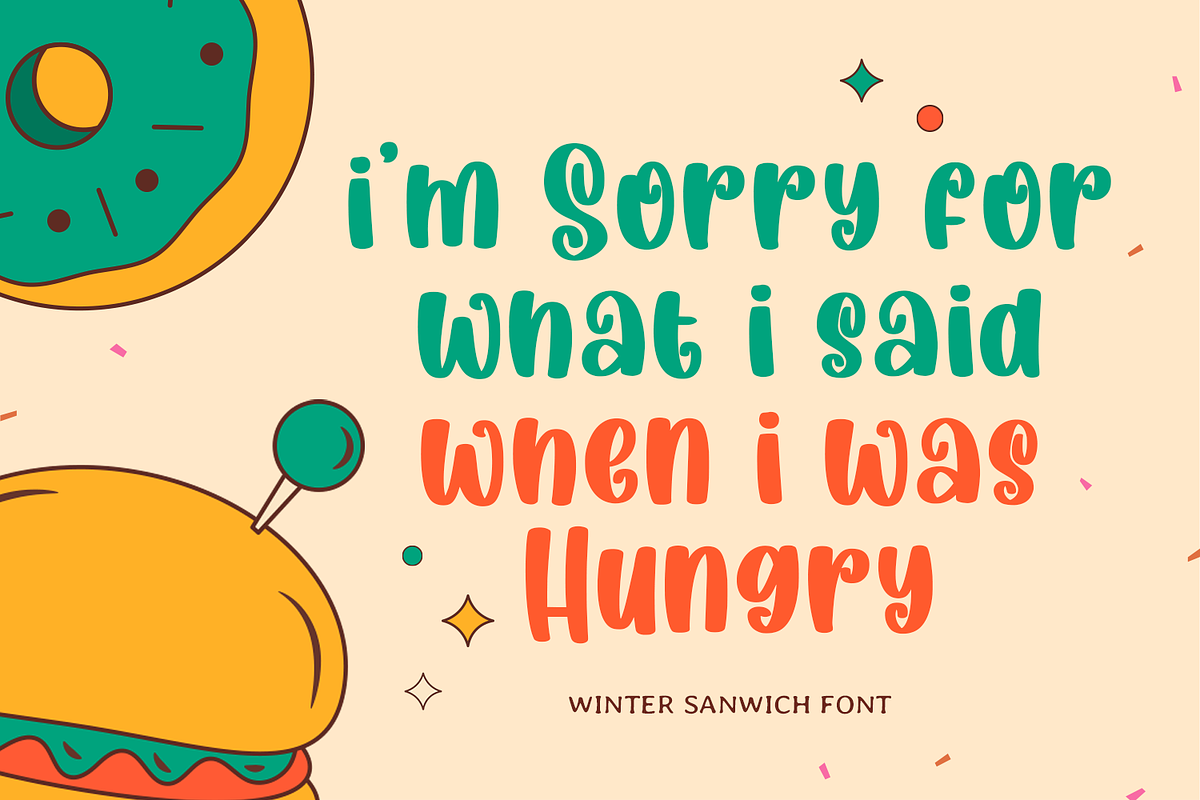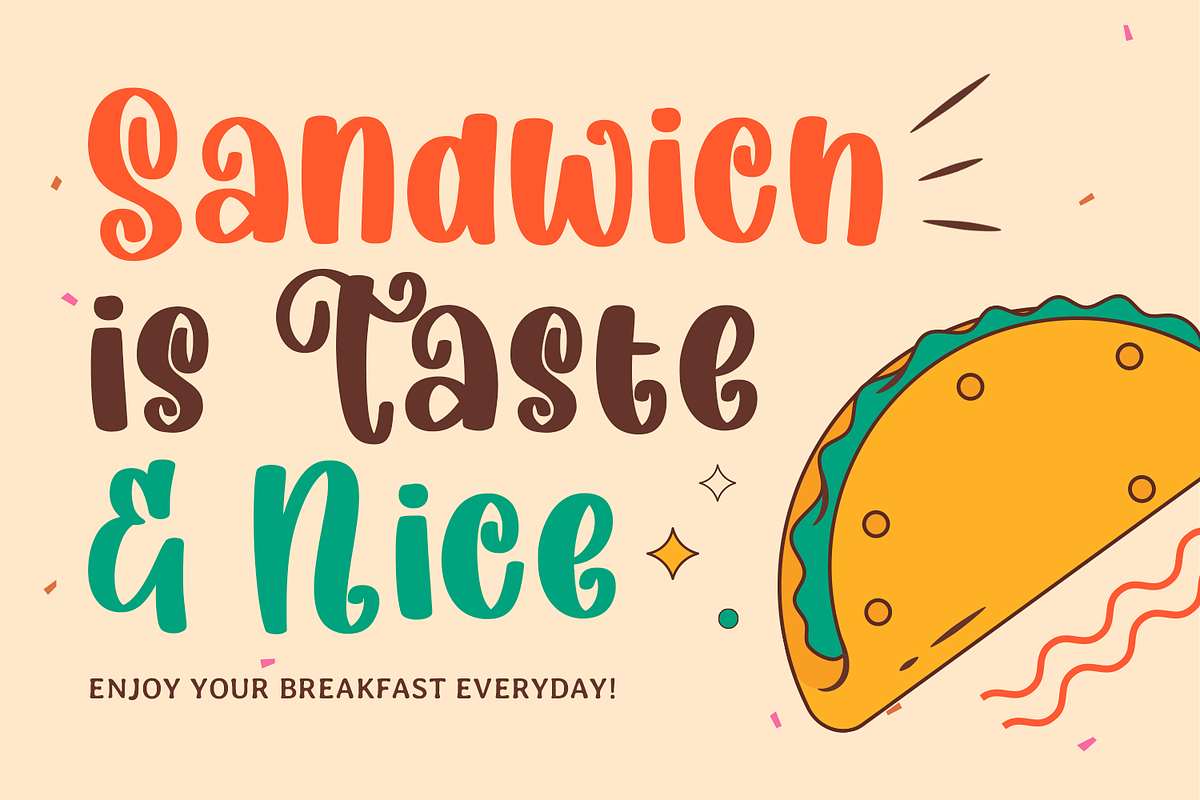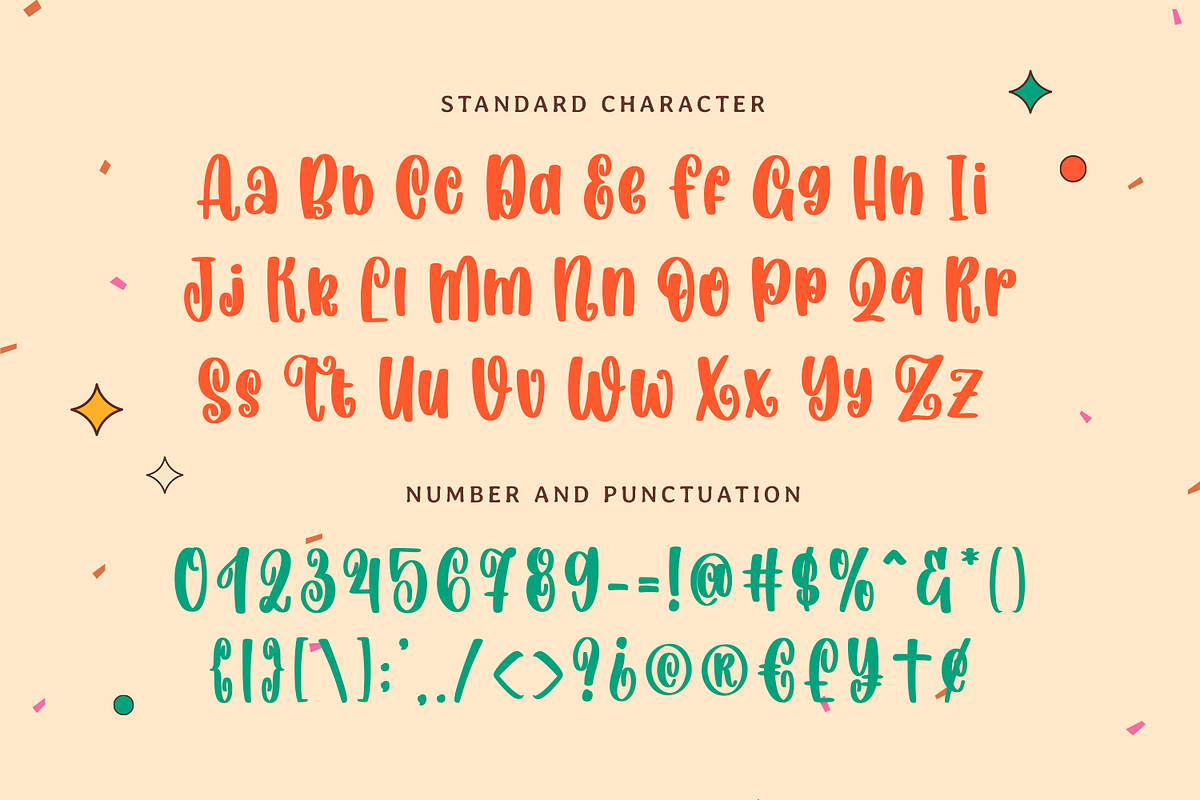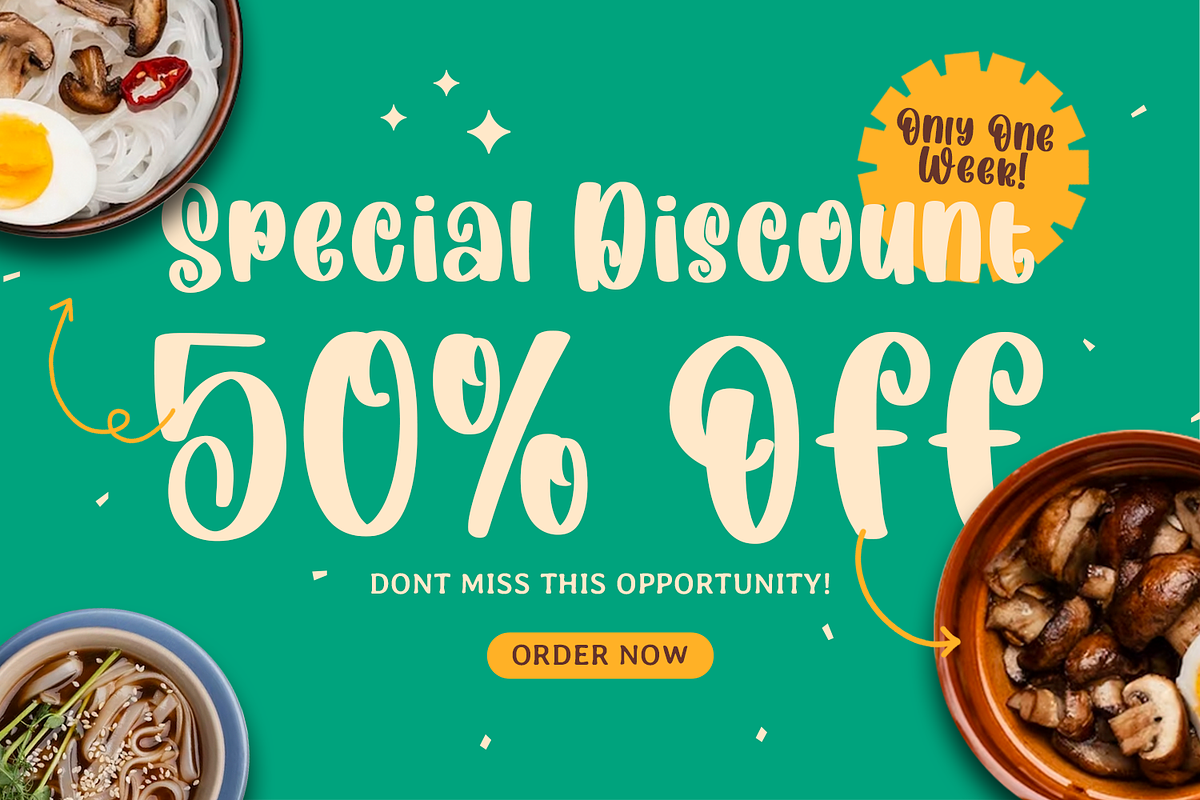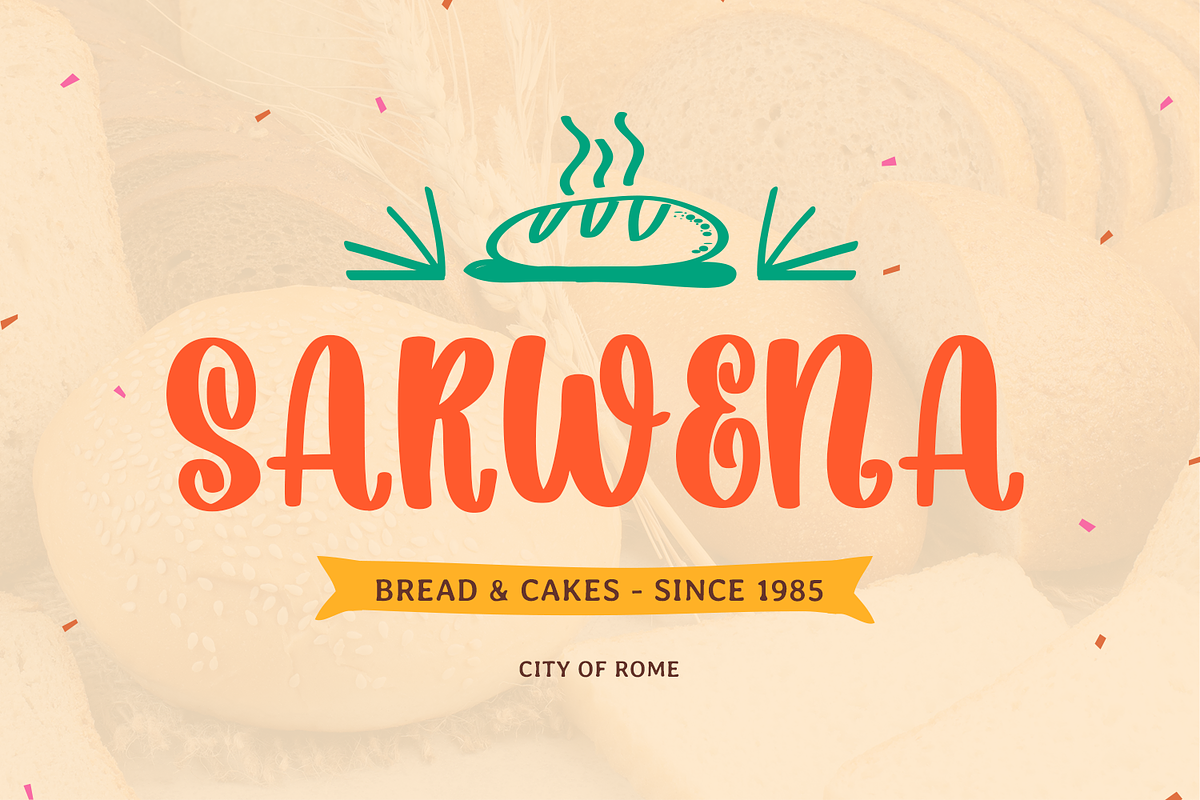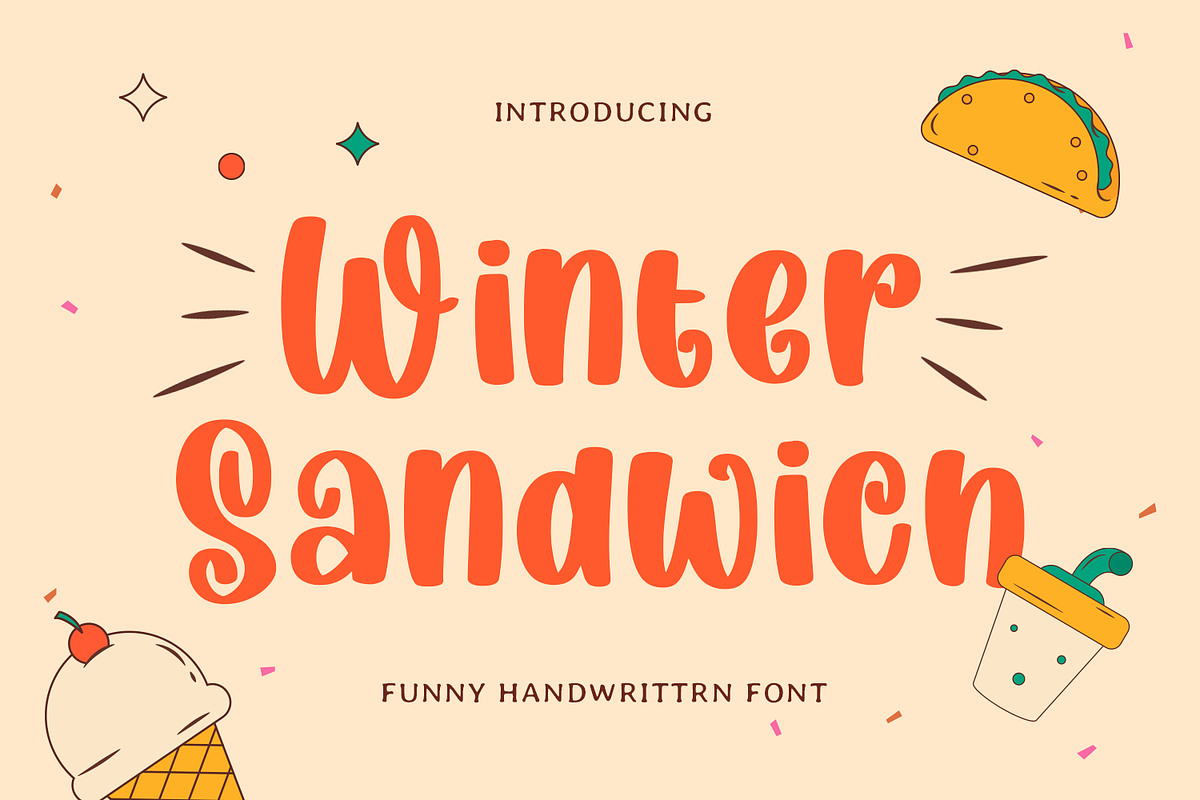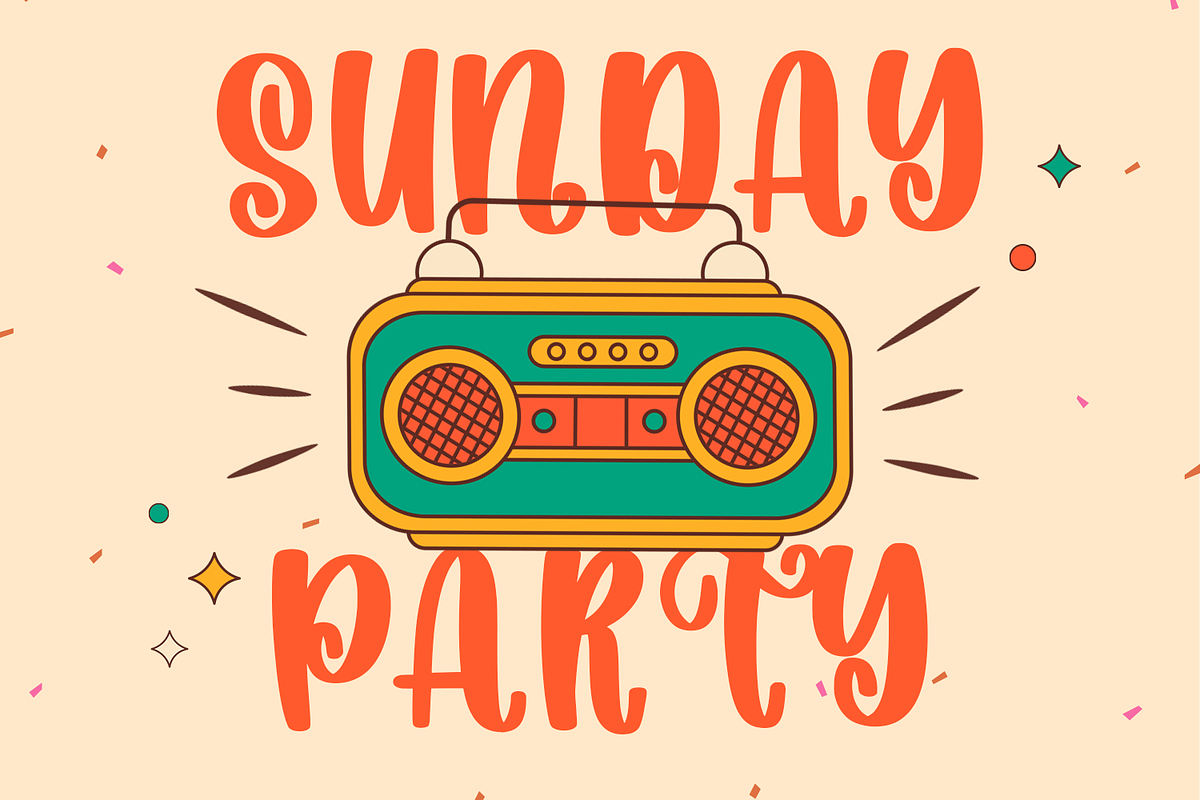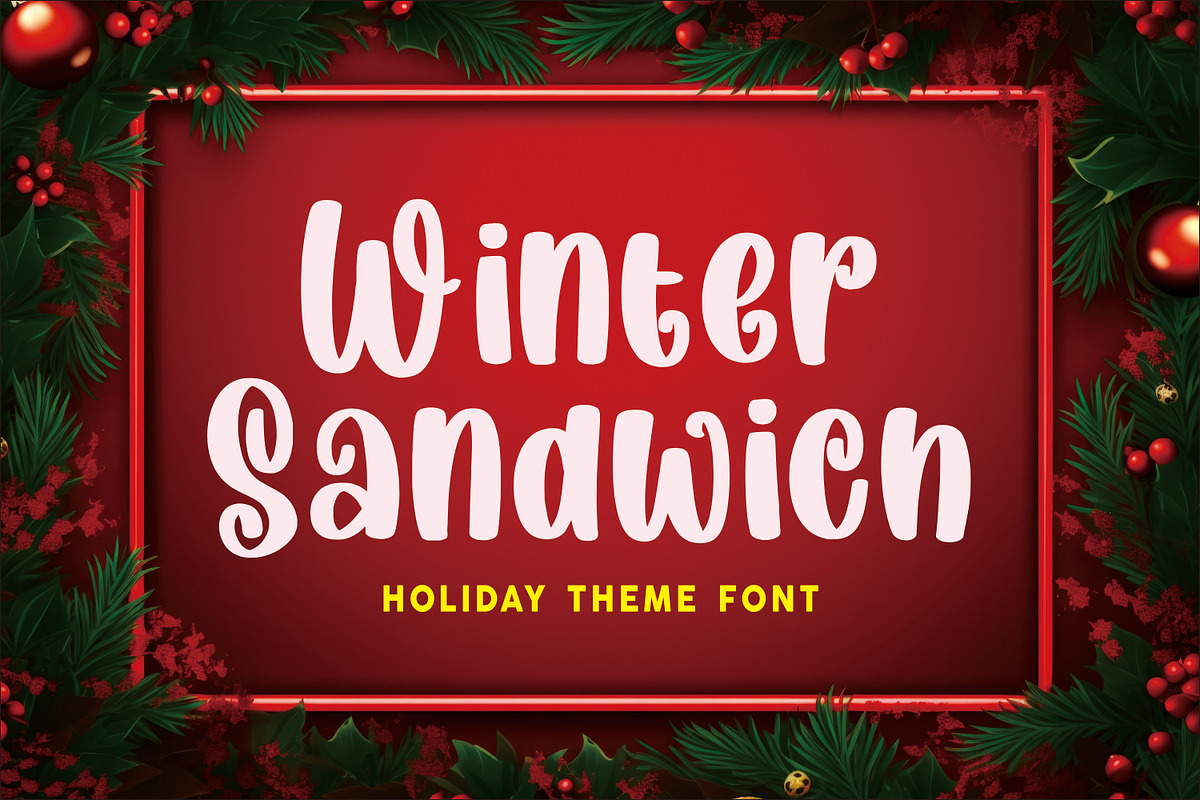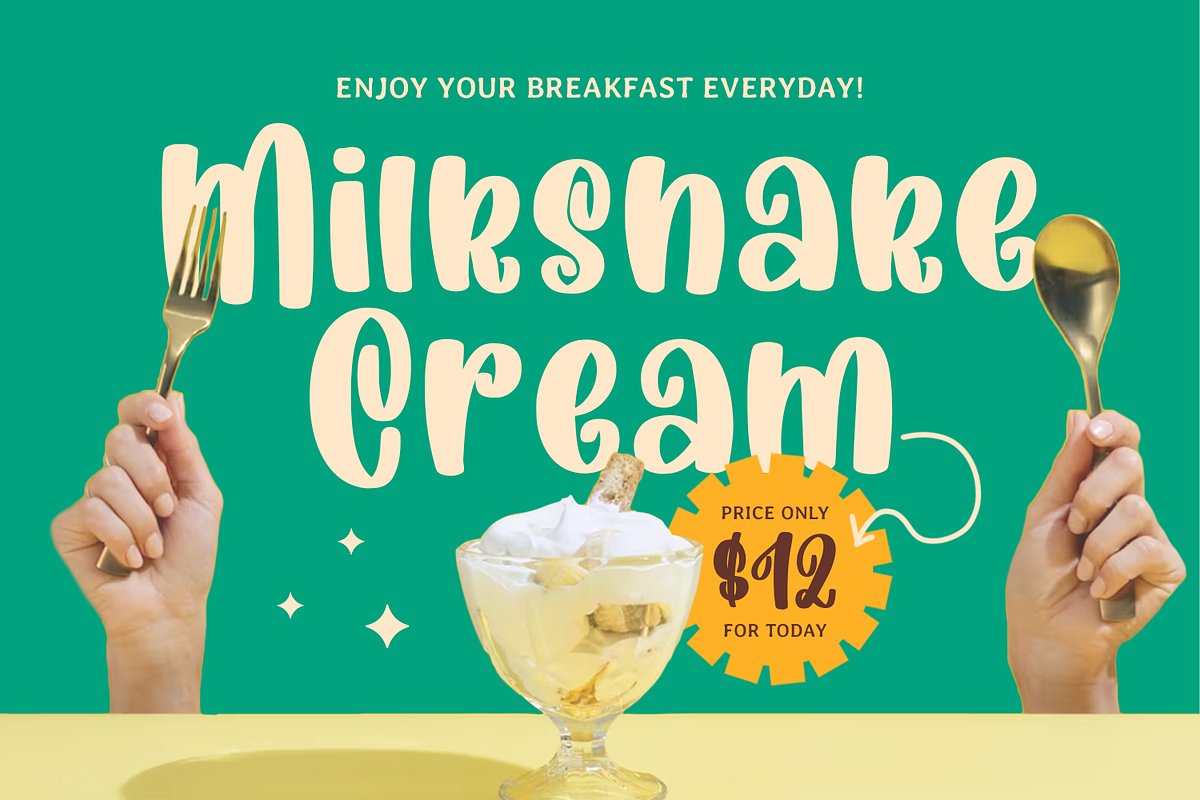
Winter Sandwich
Introducing Winter Sandwich, a charming handwritten font that brings warmth and joy to your designs throughout every season. This font features beautifully crafted beginning and ending wash tails on each character, adding a flowing, elegant touch to any project. Perfect for wedding invitations, birthday greetings, Easter cards, and more, Winter Sandwich is a versatile choice that complements both festive and everyday designs.
Winter Sandwich is ideal for a wide range of creative themes, from Christmas and Thanksgiving crafts to summery and springtime projects. Its smooth, natural strokes add a cozy, heartfelt feel to DIY crafts, Cricut creations, and embroidery designs. Whether you're designing a holiday card, a wedding invitation, or a personalized gift, this font provides a delicate and inviting look that makes your messages feel truly special.
With PUA encoding, Winter Sandwich offers easy access to alternate characters, swashes, and decorative elements, allowing you to customize your designs with just a few clicks. From autumn-themed decor to cheerful Christmas projects, this font adapts beautifully to any occasion, giving you endless creative possibilities. Its flowing script style is perfect for creating standout lettering and stunning SVG designs that will capture everyone's attention.